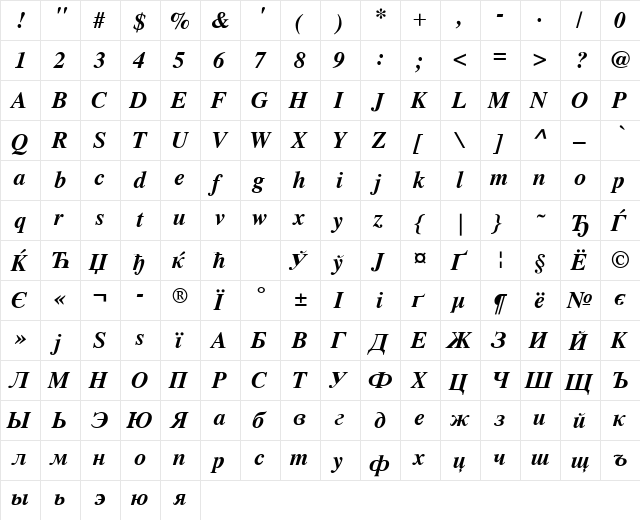
Vremya Bold Italic
Design Context for Vremya Typeface
Vremya takes a measured approach to typography — its balanced proportions and neutral character make it a reliable workhorse for both digital and print work. Its italic angle brings a sense of urgency and motion to the letterforms. Its bold stroke weight gives it real presence on the page.
Pro Tip: Try Vremya for annotation and caption copy alongside an upright companion — the contrast in angle creates a dynamic but ordered typographic system.